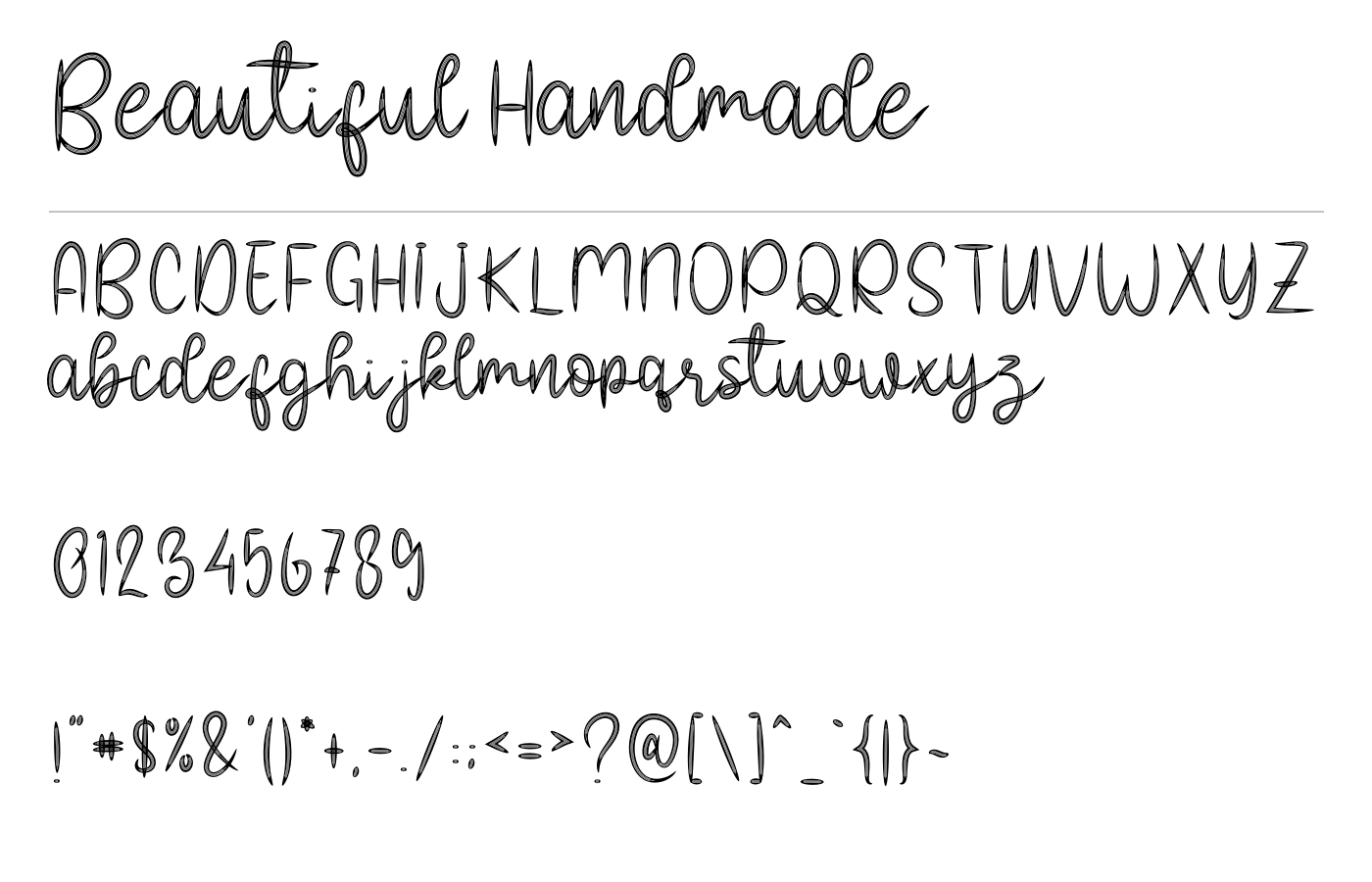
Beautiful Handmade Font is a playful and elegant handwritten script with a light, airy feel and smooth, looping strokes. Its casual yet sophisticated style makes it perfect for creative branding, invitations, and lifestyle projects that want to evoke warmth and personality. This font works well where a personal, handcrafted touch is needed to connect with audiences in a charming, approachable way.
Beautiful Handmade Font